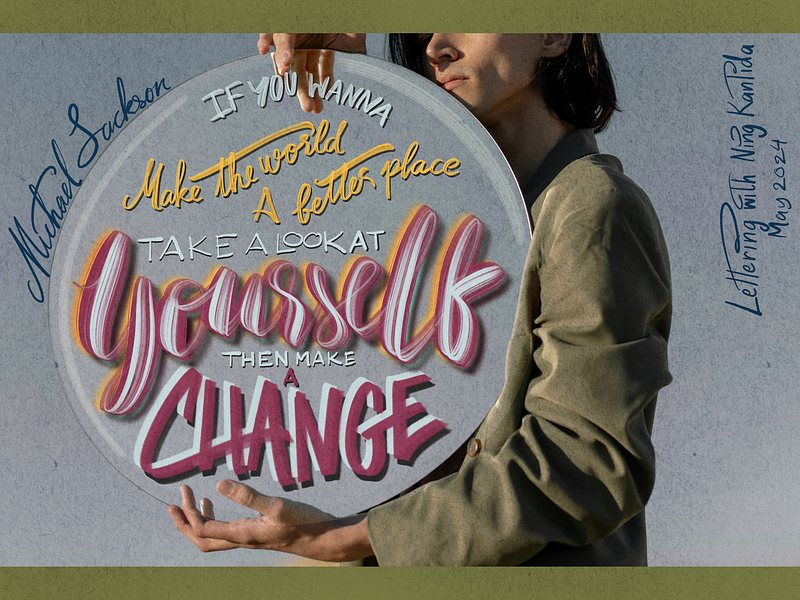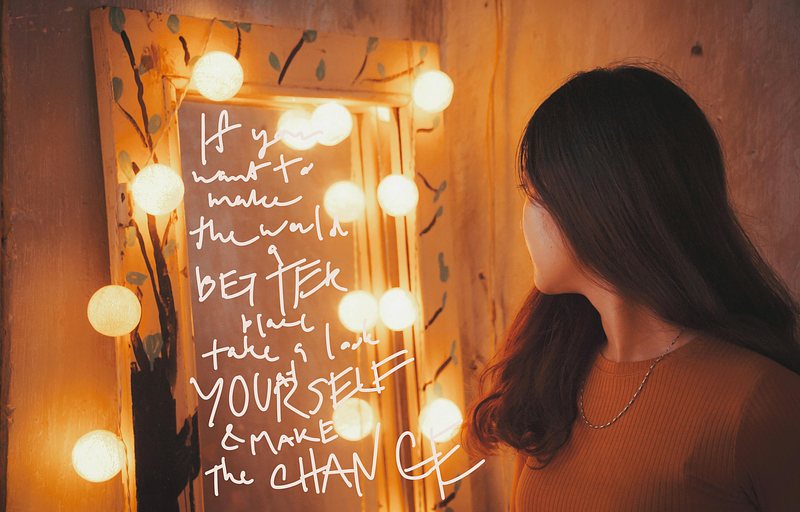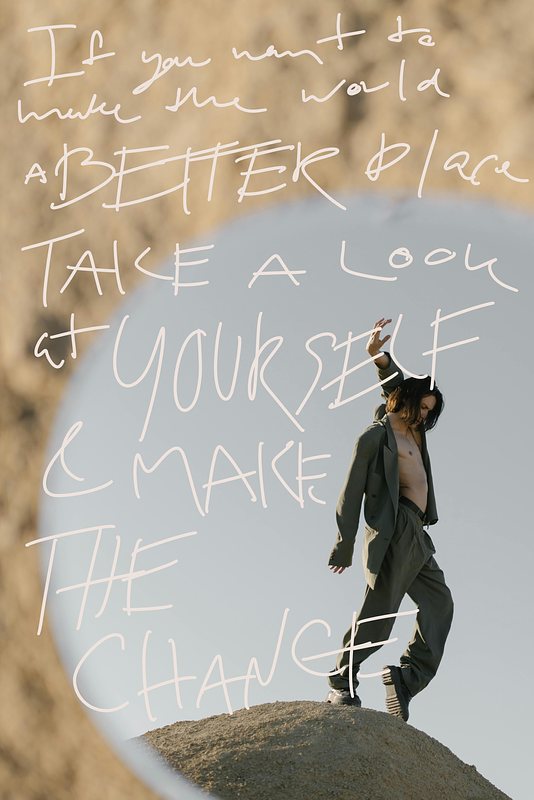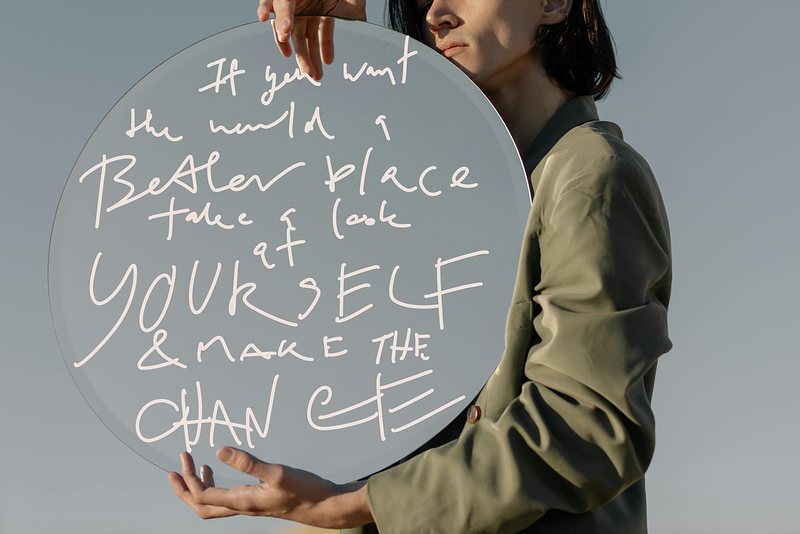
The Lyrics Lettering 00022-Man In The Mirror by Michael Jackson
The Work
This is my lettering piece inspired by the song "Man In The Mirror", with the image from Cottonbro Studio.
The Inspiration
Despite our different music tastes, my family and I can always agree on one artist—Michael Jackson. One of my most cherished memories is singing his music in the car together.
"Man in The Mirror" is a personal favorite of mine. Its message of taking charge of our lives and actions resonates with me. That's why I decided to create a lettering piece featuring the lyrics.
I'm starting with the man in the mirror
I'm asking him to change his ways
No message could've been any clearer
If you wanna make the world a better place
Take a look at yourself and then make the change
The Process
I knew a mirror had to be incorporated into the design, but it was challenging to visualize without a reference image. After some sketching, I decided to find a suitable image before finalizing the composition.
I had three options to choose from.
First option
The first one was great, but the lighting would be too distracting.
The Second Option
The second one resembled MJ's iconic pose, but the mirror wasn't prominent enough for the self-reflection theme.
The Third Option
The last one was my pick, with enough space for the lyrics and a clear self-reflection vibe.
Choosing the lettering styles was the final step, and I'm quite pleased with the result, considering it only took me less than two hours to complete.